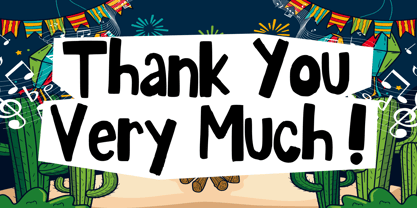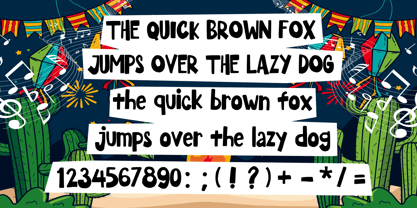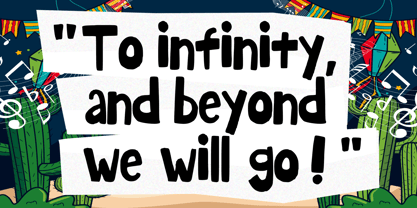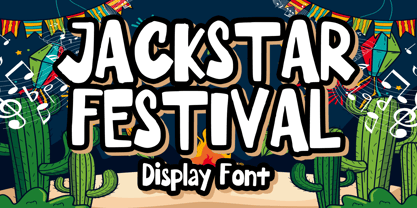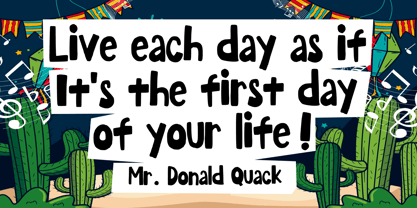
Jackstar Festival
by Mvmet
The Jackstar Festival Font Family was designed by Gabriel Valentinus and published by Mvmet. Jackstar Festival contains 1 styles. More about this family
Jackstar Festival is a cute and festive cartoon display font. It will elevate a wide range of design projects to the highest level. You can use this font for many design ideas such as stickers, t-shirt designs, amazing logo designs, magazine or book covers, comics, cartoon drawings, daily typing, and many more. This font will add a super cool touch to your designs!
Designers: Gabriel Valentinus